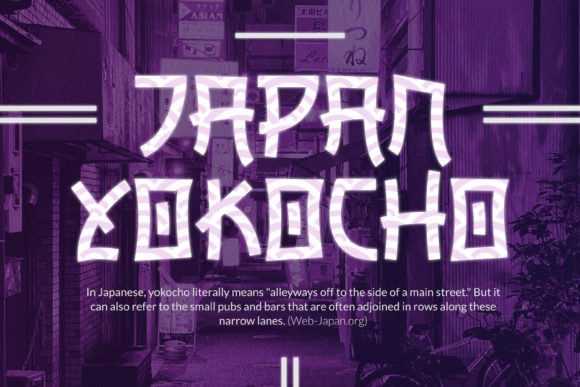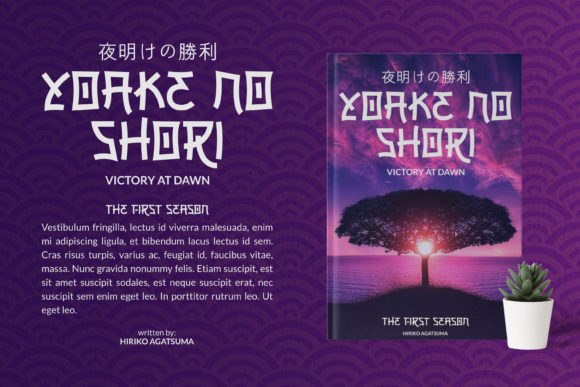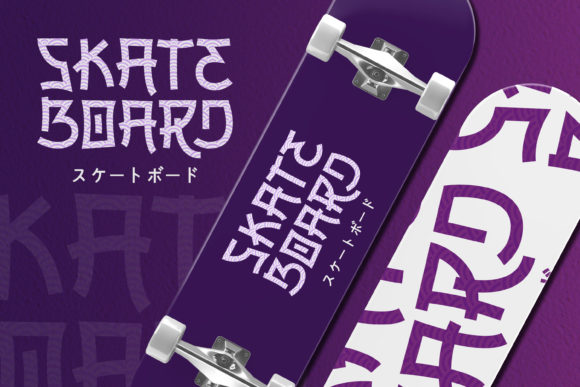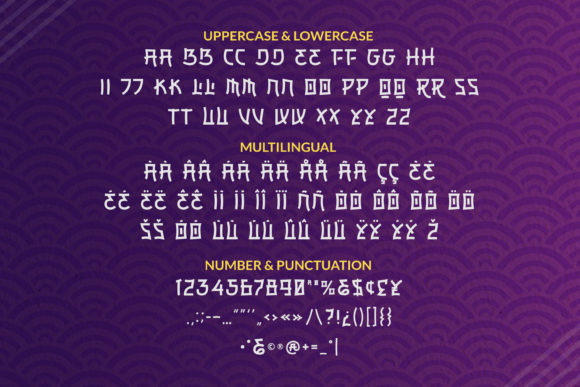
Introducing Harubi Font: A Japanese-Inspired Display Font for Creative Designs
Are you tired of using the same old fonts for your designs? Look no further than Harubi Font, a unique and stunning Japanese-inspired display font that’s perfect for food menus, posters, flyers, and prints. With its distinctive style and versatility, Harubi Font is sure to elevate your designs and leave a lasting impression.
What Makes Harubi Font So Special?
Harubi Font is an incredibly unique font that’s inspired by Japanese typography. Its design combines traditional Japanese elements with modern flair, making it a standout in any design project. The font features bold, expressive characters with a distinctive flair at the terminals, giving it a stylized and artistic feel.
Perfect for Food Menus and Culinary Designs
Food menus, in particular, are a great match for Harubi Font. The font’s Japanese inspiration and stylized design evoke the flavors and aromas of Asian cuisine, making it perfect for sushi restaurants, ramen shops, and bakeries. But Harubi Font isn’t limited to just food menus – it’s also great for any design project that needs a touch of elegance and sophistication.
Harubi Font is an incredibly versatile font that can be used for a wide range of design projects. Here are just a few ideas to get you started:
- Food menus and restaurant branding
- Posters and flyers for events and promotions
- Print designs, such as business cards and brochures
- Digital designs, such as social media graphics and website headers
- Packaging design for food and beverage products
Tips for Using Harubi Font in Your Designs
To get the most out of Harubi Font, here are a few tips to keep in mind:
- Use Harubi Font as a statement font to draw attention to key information, such as headings and titles.
- Pair Harubi Font with a simpler font to create contrast and visual interest.
- Experiment with different colors and textures to add depth and dimension to your design.
- Don’t be afraid to get creative and try out new and unusual design ideas!
Why Designers and Crafters Love Harubi Font
Harubi Font has quickly become a favorite among designers and crafters, and it’s easy to see why. Here are just a few reasons why Harubi Font is a must-have for any designer:
- Unique and distinctive design that’s sure to stand out.
Harubi Font is an incredibly unique and versatile font that’s perfect for designers and crafters looking to add a touch of elegance and sophistication to their designs. With its Japanese inspiration and stylized design, Harubi Font is sure to elevate your designs and leave a lasting impression. So why wait? Download Harubi Font today and start exploring its endless possibilities!
Key Features of Harubi Font
- Unique and distinctive Japanese-inspired design.
- Bold, expressive characters with a stylized flair.
- Perfect for food menus, posters, flyers, and prints.